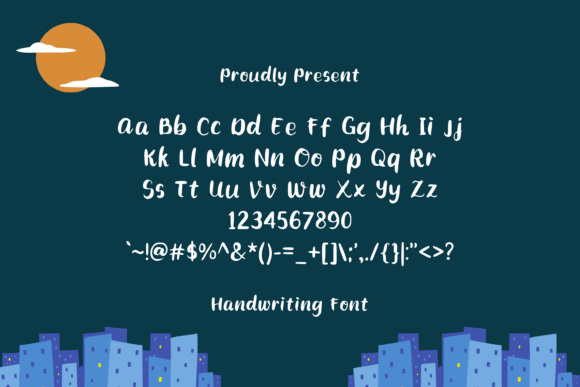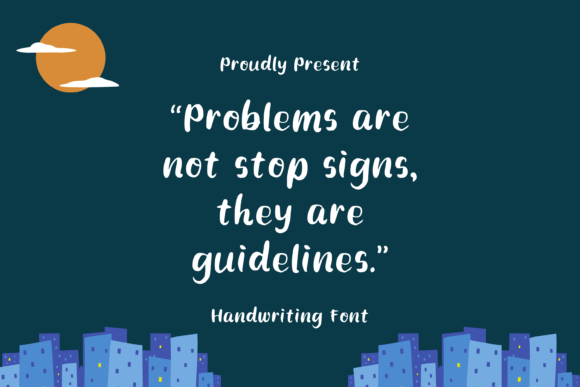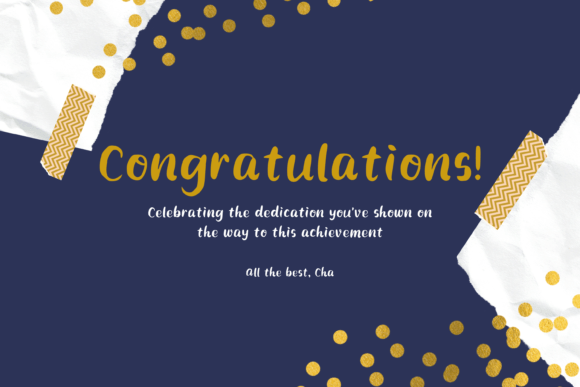
Introduction to Hurayra Font
Have you ever stared at a blank canvas, wondering what design magic would bring your creative project to life? That’s where the right font comes in – the perfect companion to breathe life into your artistic endeavors. For designers seeking a high-quality, one-of-a-kind element to elevate their designs, the Hurayra Font is a game-changer. This beautiful, unique, and graceful regular handwritten font is a design resource that will make your creations truly stand out.
Not only is the Hurayra Font a stunning addition to any design, but it’s also available for free download, making it an incredibly valuable resource for designers on a budget. With a transparent background, this versatile font can be easily integrated into various design projects, from digital art to print materials. Whether you’re a seasoned designer or just starting out, the Hurayra Font is an essential tool to have in your arsenal.
Key Features of Hurayra Font
- Transparent background for seamless integration into various design elements.
- Unique and stylish design, ideal for modern and creative projects.
Honest Review: Hurayra Font
As a designer, I’m always on the lookout for high-quality design resources to elevate my creative projects. The Hurayra Font is one such resource that caught my attention. I downloaded it for free, and I must say, it’s a great addition to my design toolkit.
- ✨ Unique and elegant script style that adds a touch of sophistication to any design.
- ✨ High-quality design that’s perfect for logos, headings, and titles.
- ✨ Transparent background, making it easy to use in various design scenarios.
- ⚠️ Limited font sizes and styles available, which might limit its versatility in certain designs.
- ⚠️ Not ideal for body text, as it can be a bit too ornate for long blocks of text.
Overall, I’m impressed with the Hurayra Font’s quality and design. While it may not be suitable for all design projects, it’s a great resource to have in your toolkit for those special occasions when you need a touch of elegance. I’d definitely recommend it as a free download for designers looking to add some flair to their creative projects.
Alternatives to Hurayra Font
A high-quality, elegant script font perfect for creative projects requiring a touch of sophistication. Alex Brush Font is ideal for invitations, wedding cards, and other design elements that need a refined look. Compared to Hurayra Font, Alex Brush Font has a more classical and traditional feel, making it suitable for formal events and high-end designs.
A modern, cursive font suitable for various design projects, including posters, social media graphics, and marketing materials. Great Vibes Font is a free download and features a transparent background, making it easy to use on any design resource. Compared to Hurayra Font, Great Vibes Font has a more dynamic and energetic feel, making it perfect for creative projects that require a lively atmosphere.